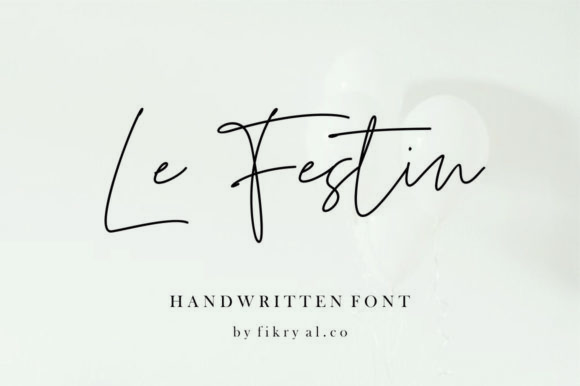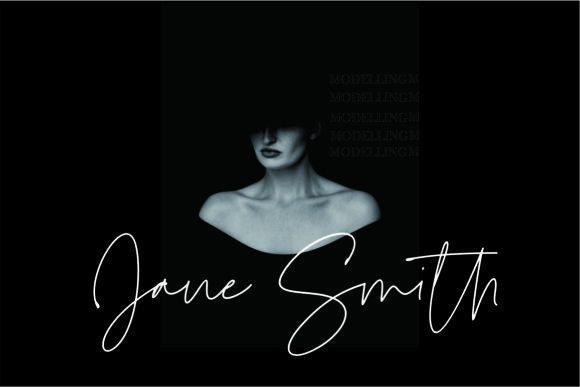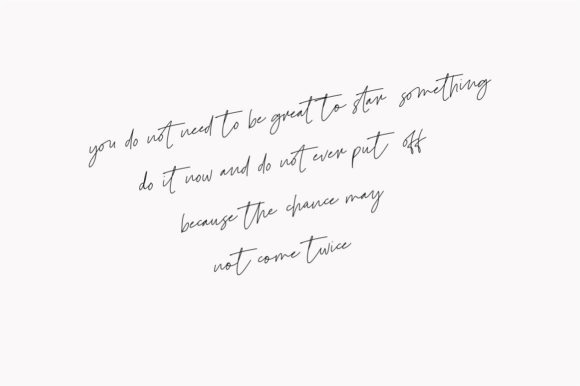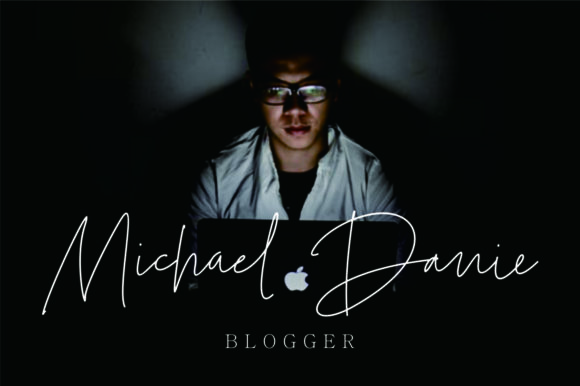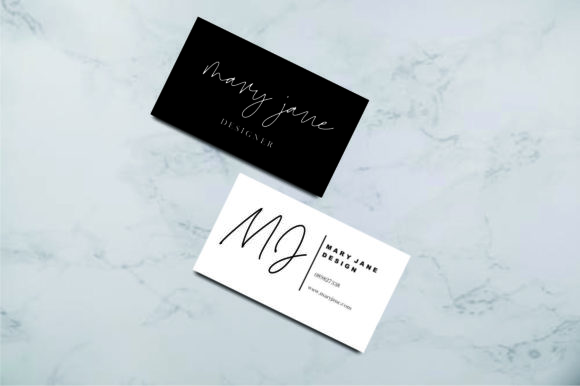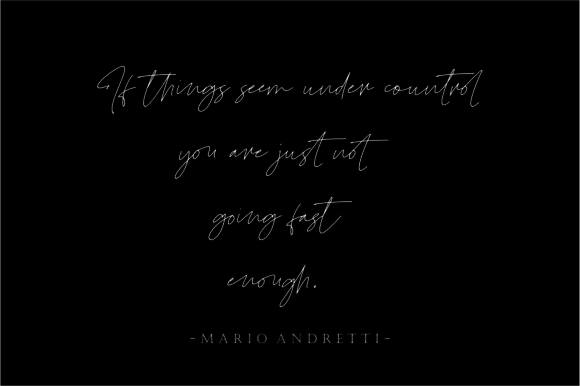
Le Festiin Font
About Le Festiin Font
The Le Festiin is a handwritten font with fast scratches and thin natural effects.
It’s suitable for magazines, mockups, quotes, advertisements, blogs, web design, chic, signatures, titles, business cards and much more!